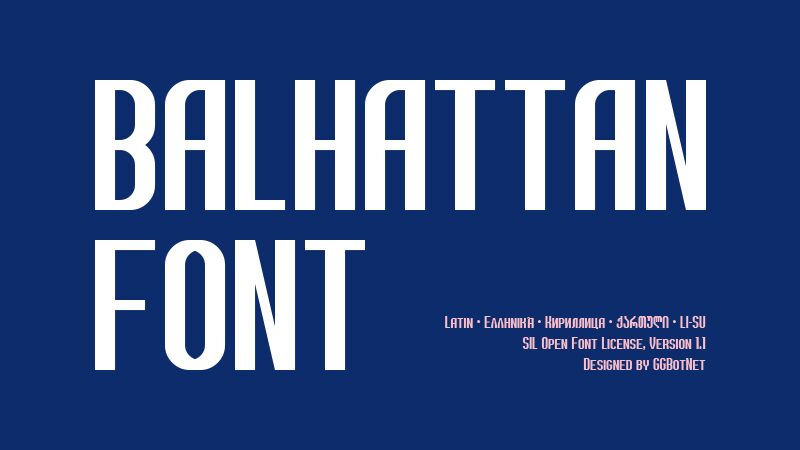
Balhattan Italic font by GGBotNet is a free condensed sans serif font that draws inspiration from vintage and geometric themes. This streamlined typeface carries subtle art deco influences while maintaining a modern adaptability. Ideal for projects where precision, elegance, and functionality come first, its clean design beautifully adapts to various classic and fashionable settings.
Use Balhattan Italic for headlines, magazines, social media posts, events promotions, logos, apparel designs, album covers, print layouts like books or brochures. Further use cases include restaurant menus and packaging of goods from cosmetics to food. Additional possibilities focus on showcasing the font's appealing potential within web design or timeless posters for home decor.